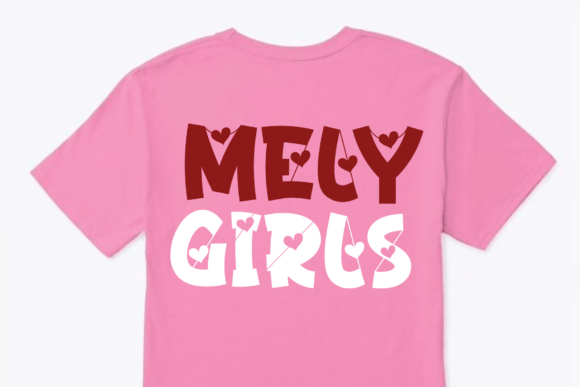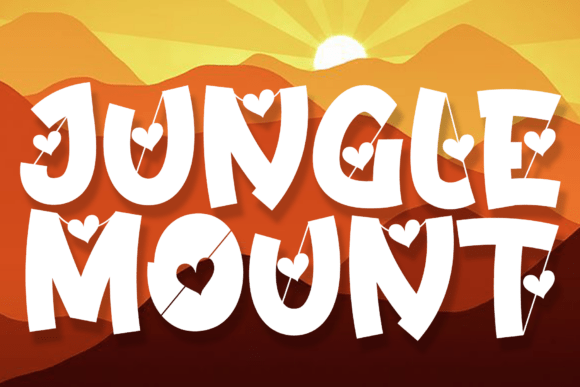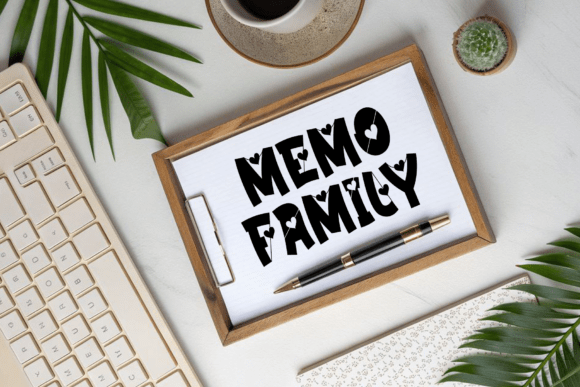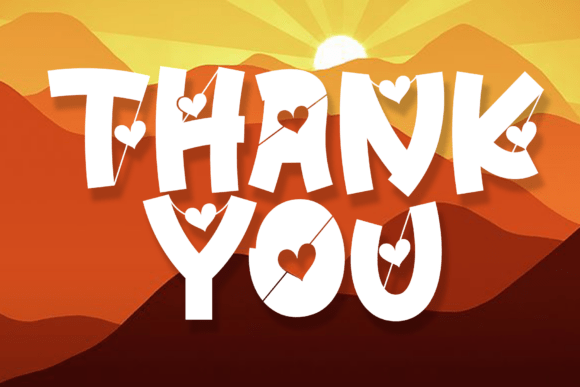
Introduction to Moon Lights Font
Inject a dose of whimsical joy into your designs with Moon Lights, a playful display font designed for maximum charm.
This typeface features bold, chunky letterforms intertwined with delicate heart motifs and โclotheslineโ style connectors Its high-contrast, bubbly personality makes it perfect for creative projects that need to feel approachable, celebratory, and full of heart.